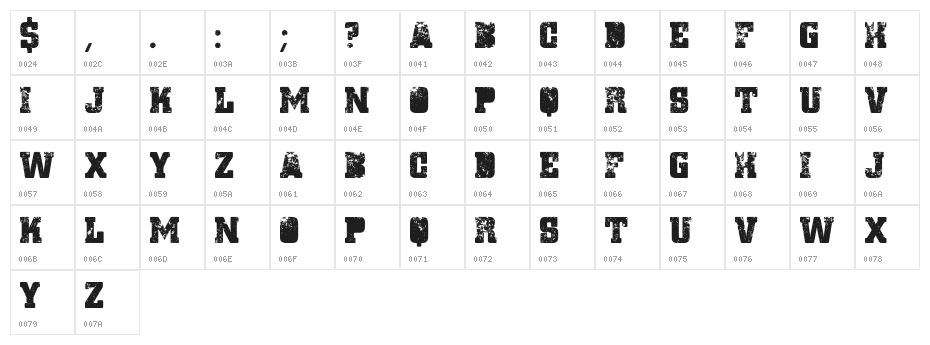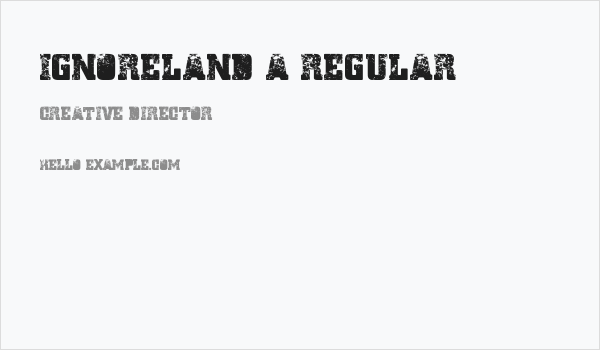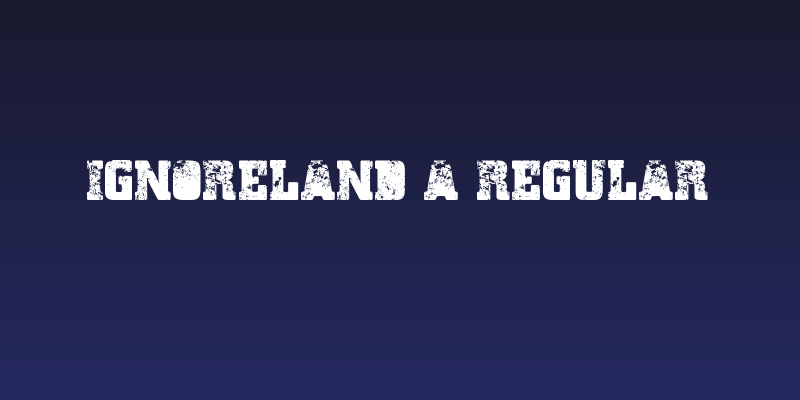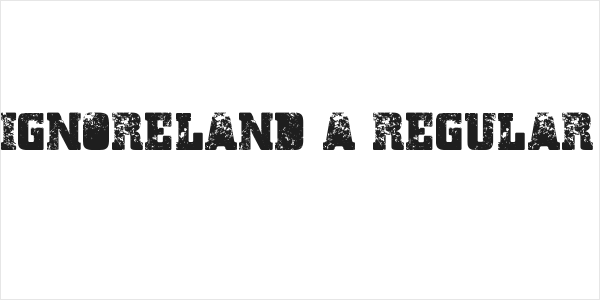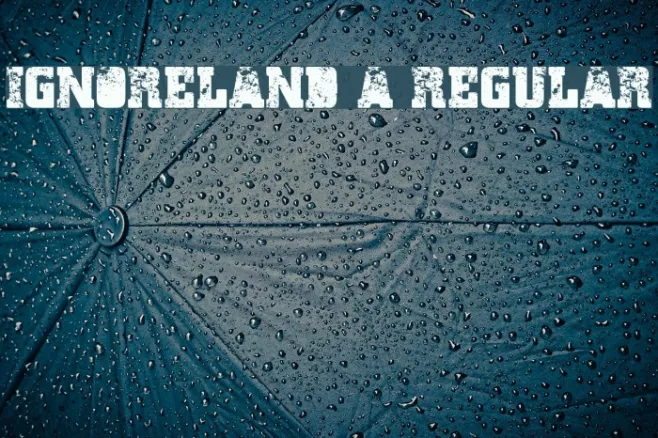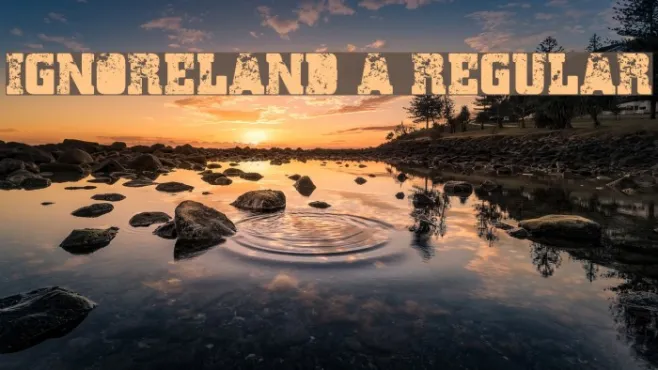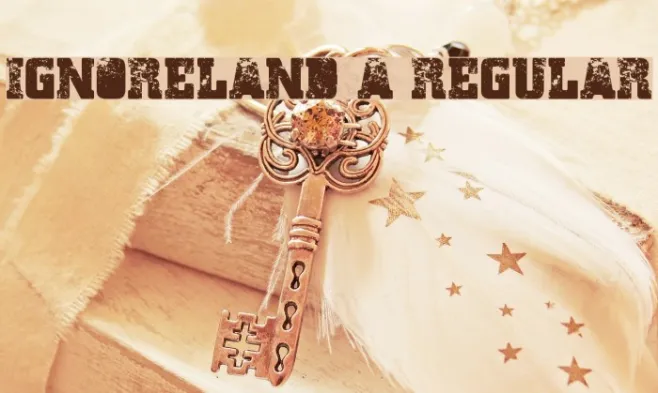
Ignoreland A Regular Font
Ignoreland A Regular Description
This font exhibits a rugged, distressed appearance, characterized by its bold and blocky letterforms. Each character is designed with a textured, worn-out effect, giving it a vintage and industrial feel. The uppercase letters are prominent and sturdy, while the lowercase letters maintain the same distressed style, ensuring consistency throughout. The numerals and special characters also follow this pattern, making the font versatile for various design needs. Its unique style is reminiscent of old signage or typewriter text, adding a touch of nostalgia and character to any project.
| Proposed Projects | Ideal for posters, album covers, branding, and any design requiring a rugged, vintage aesthetic. |